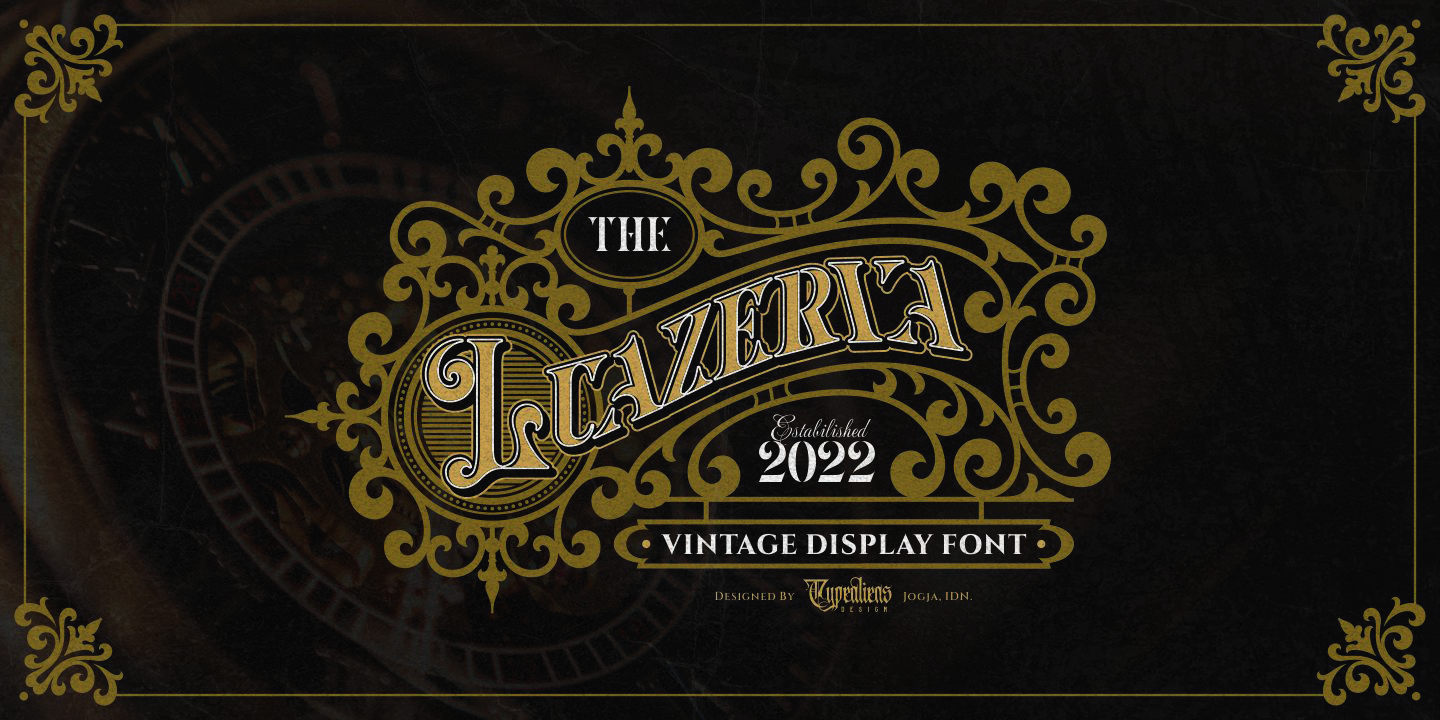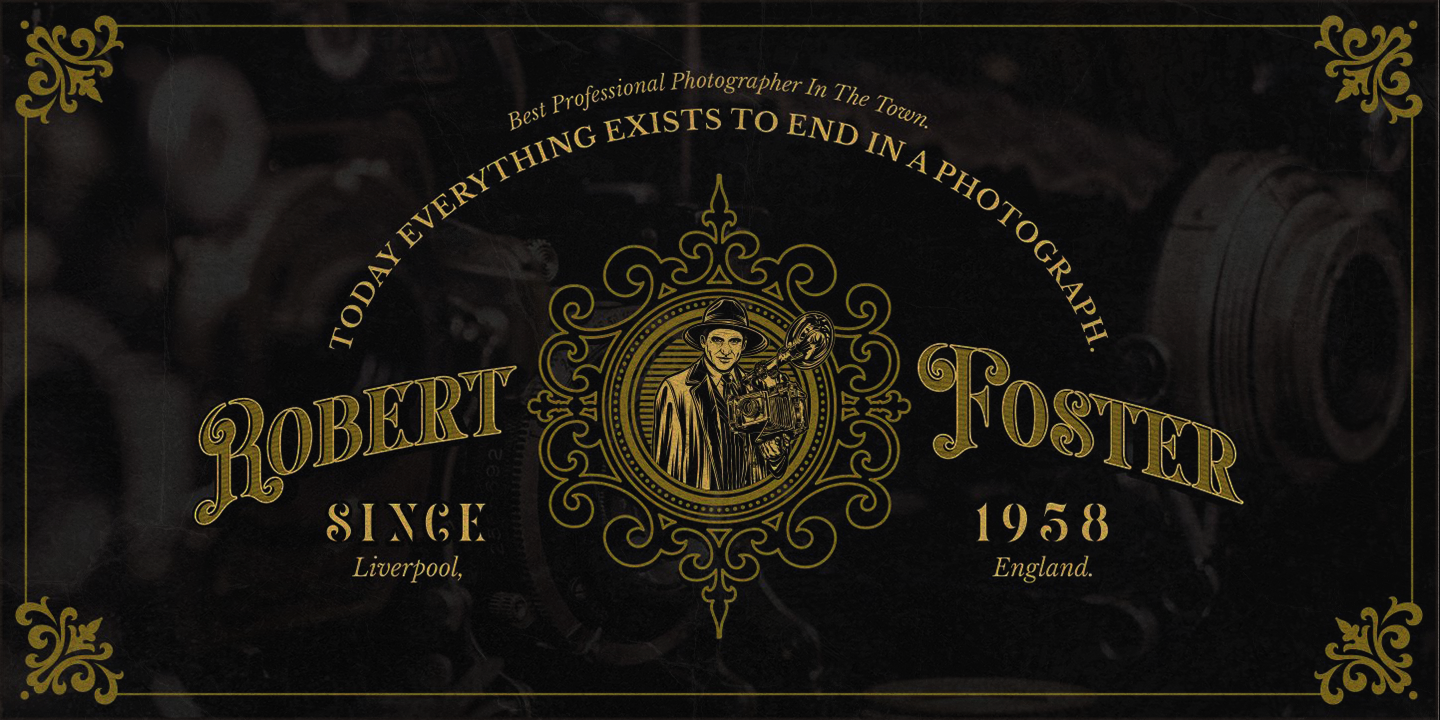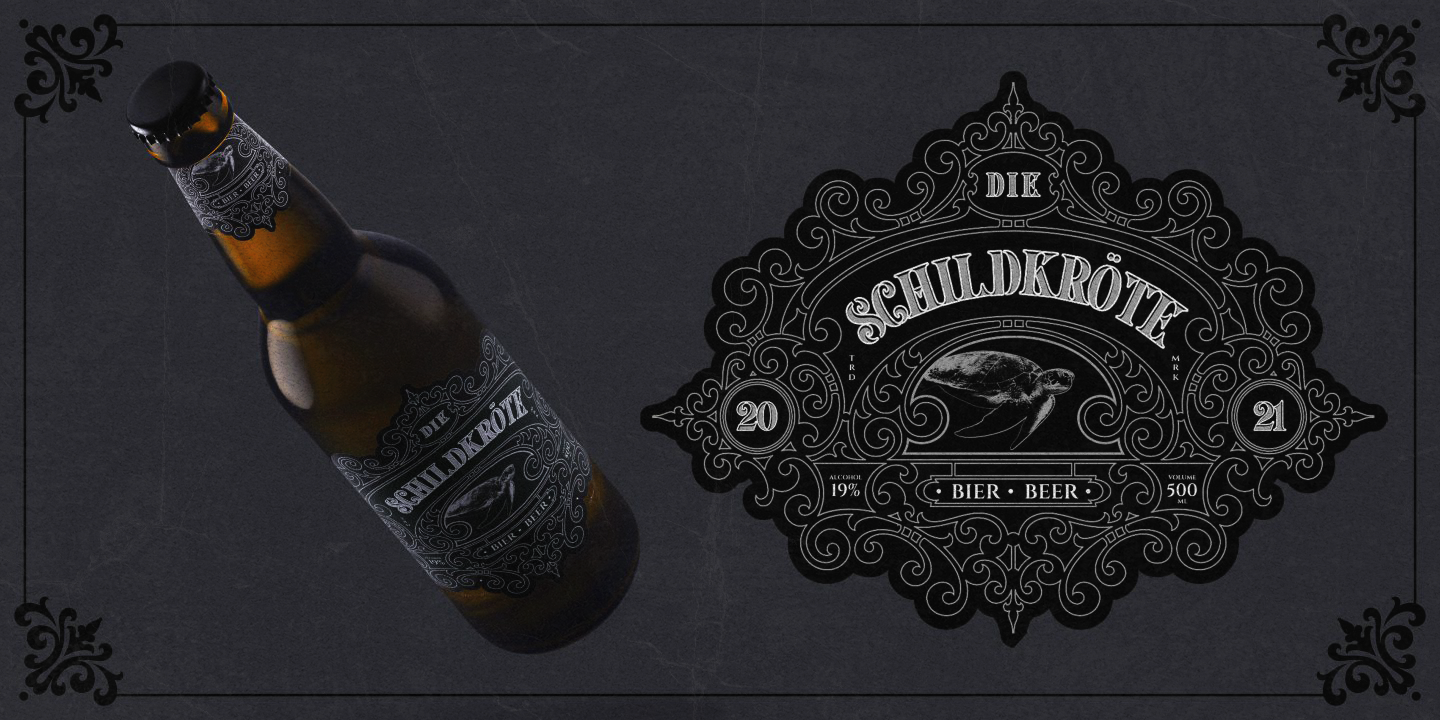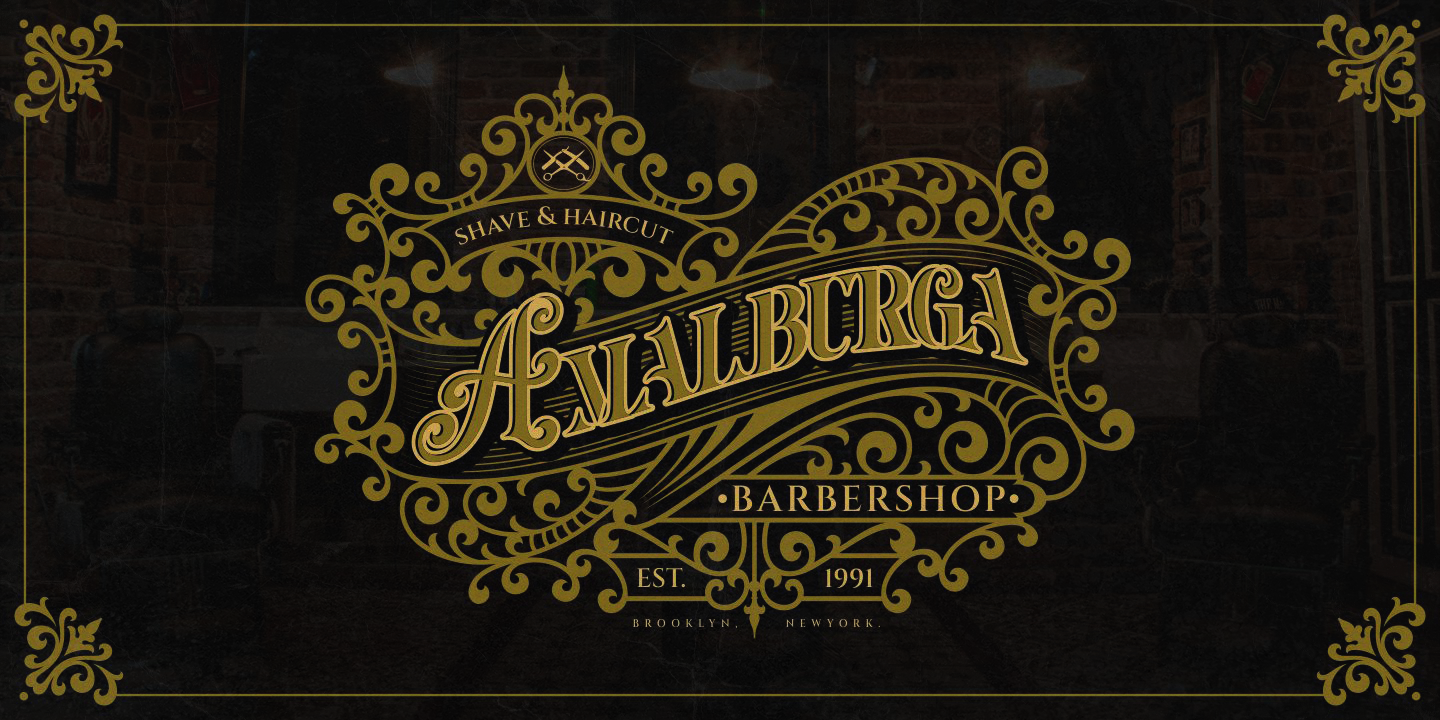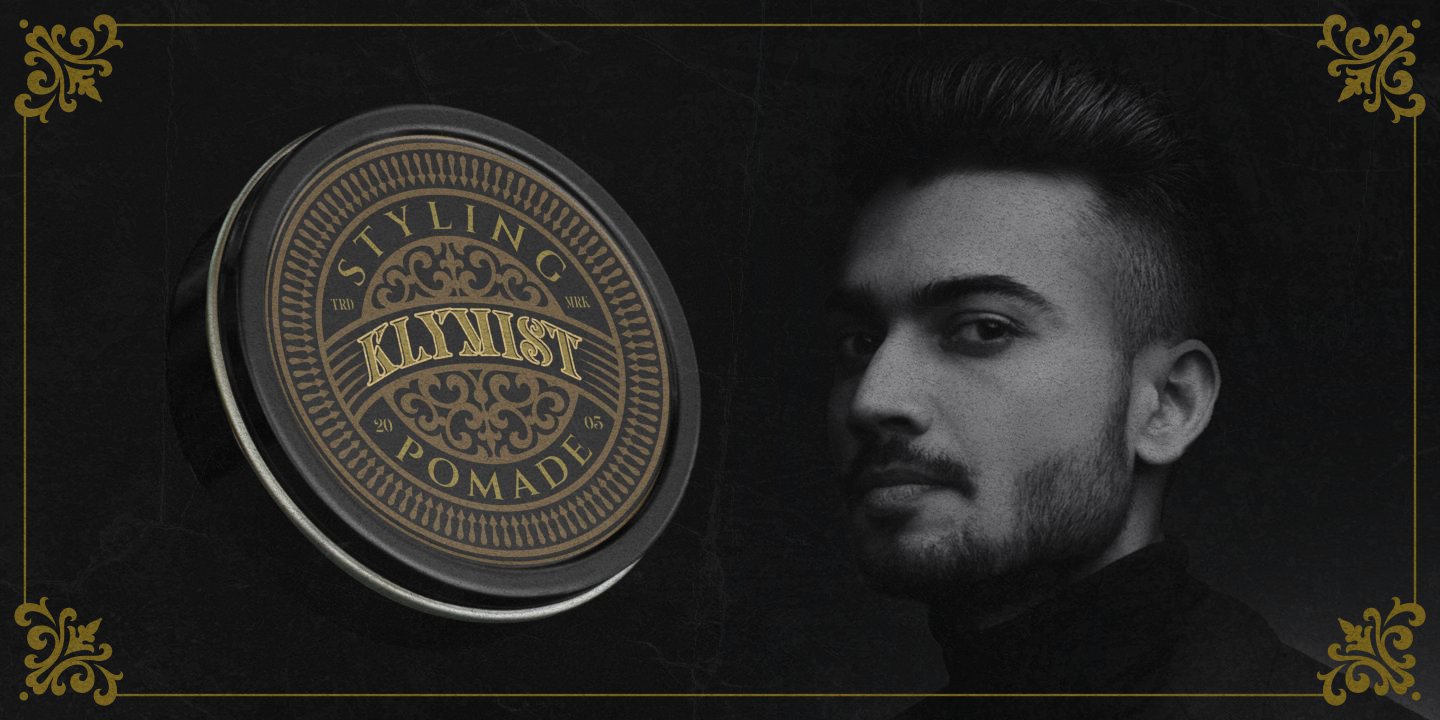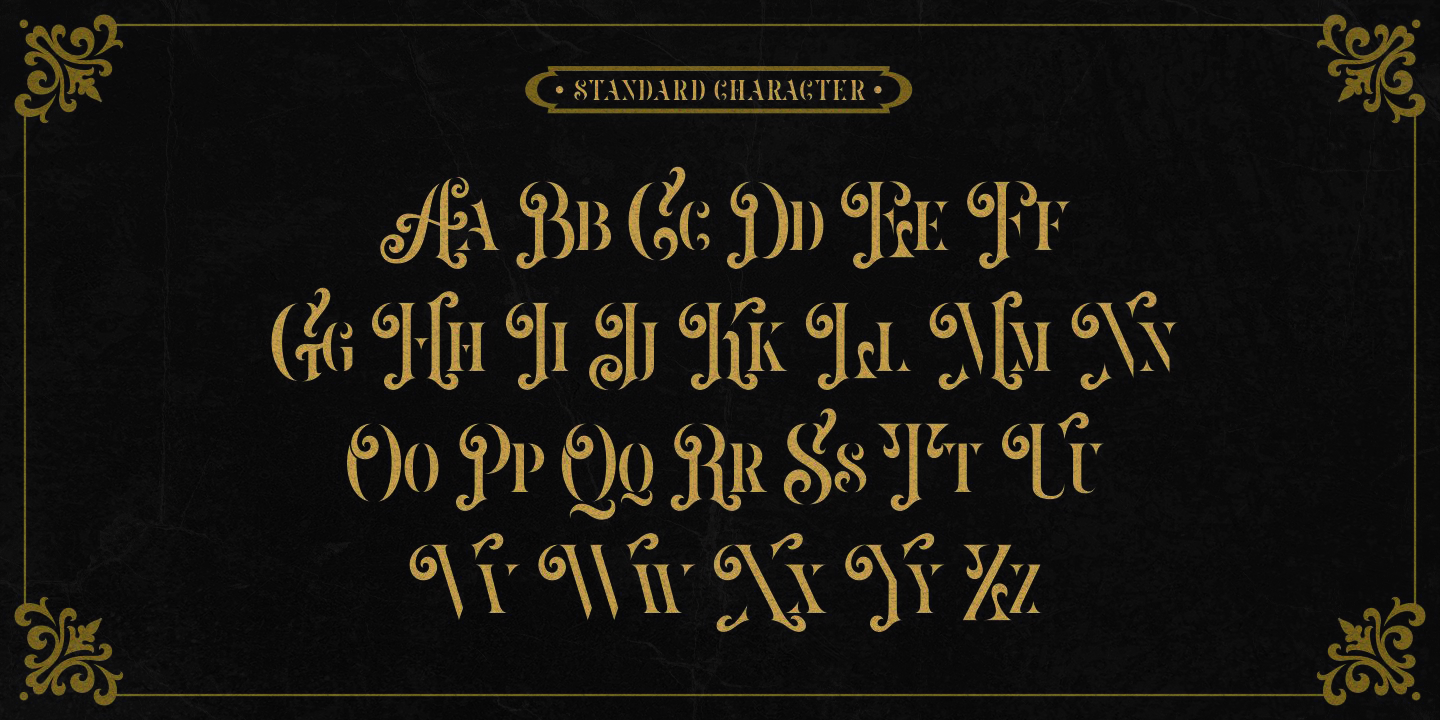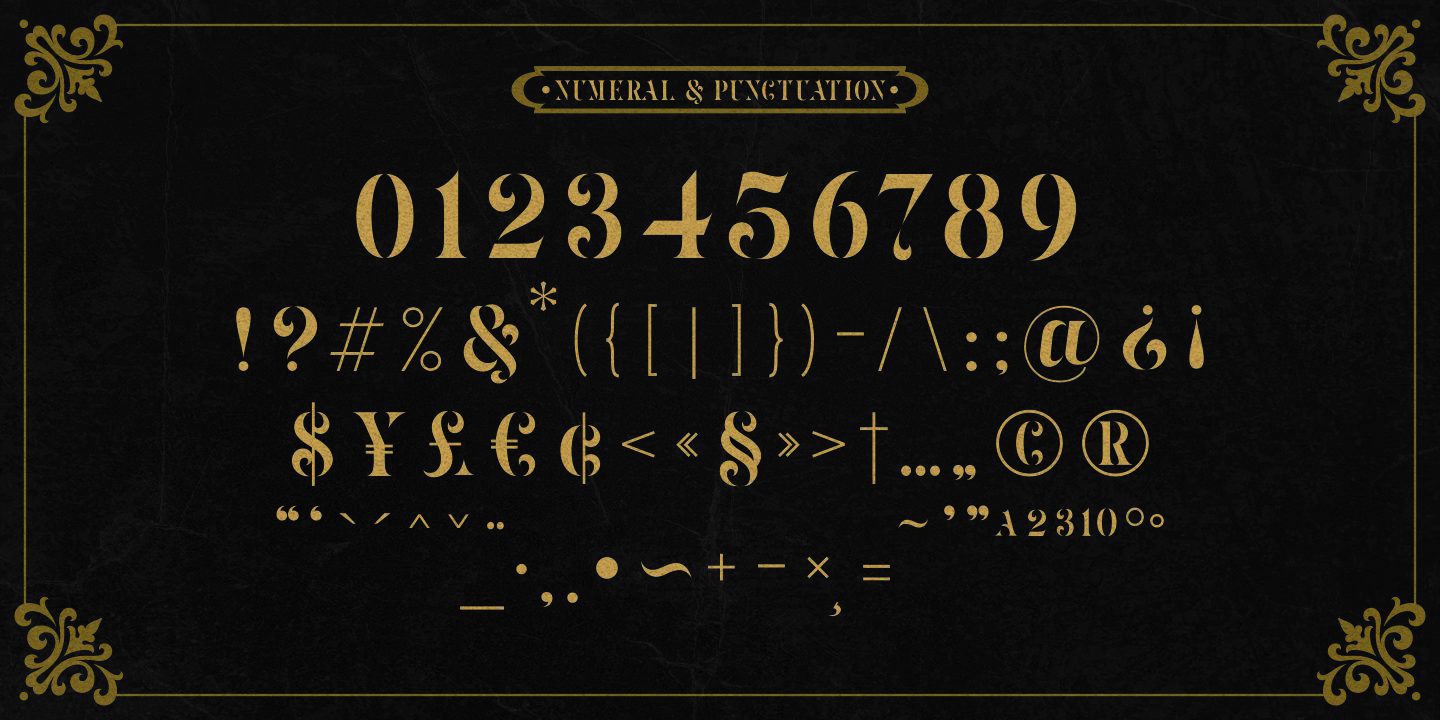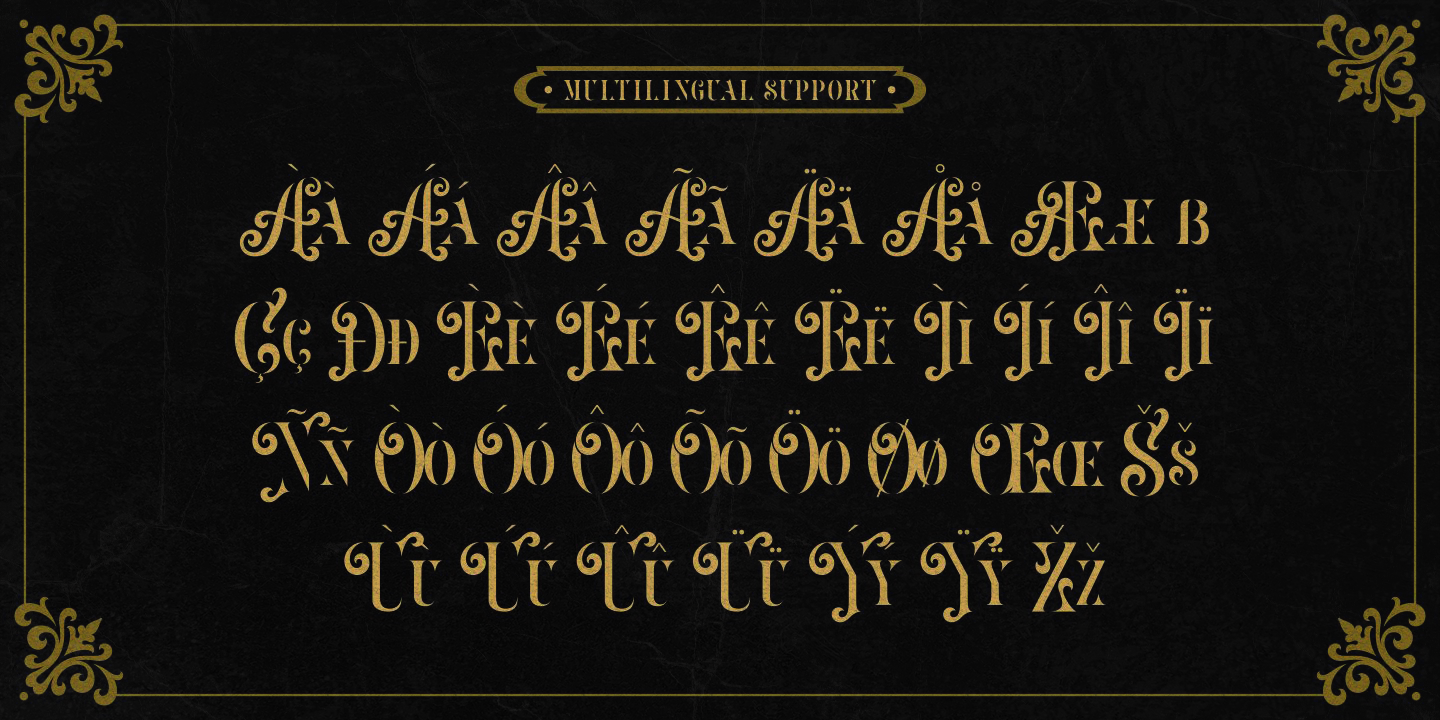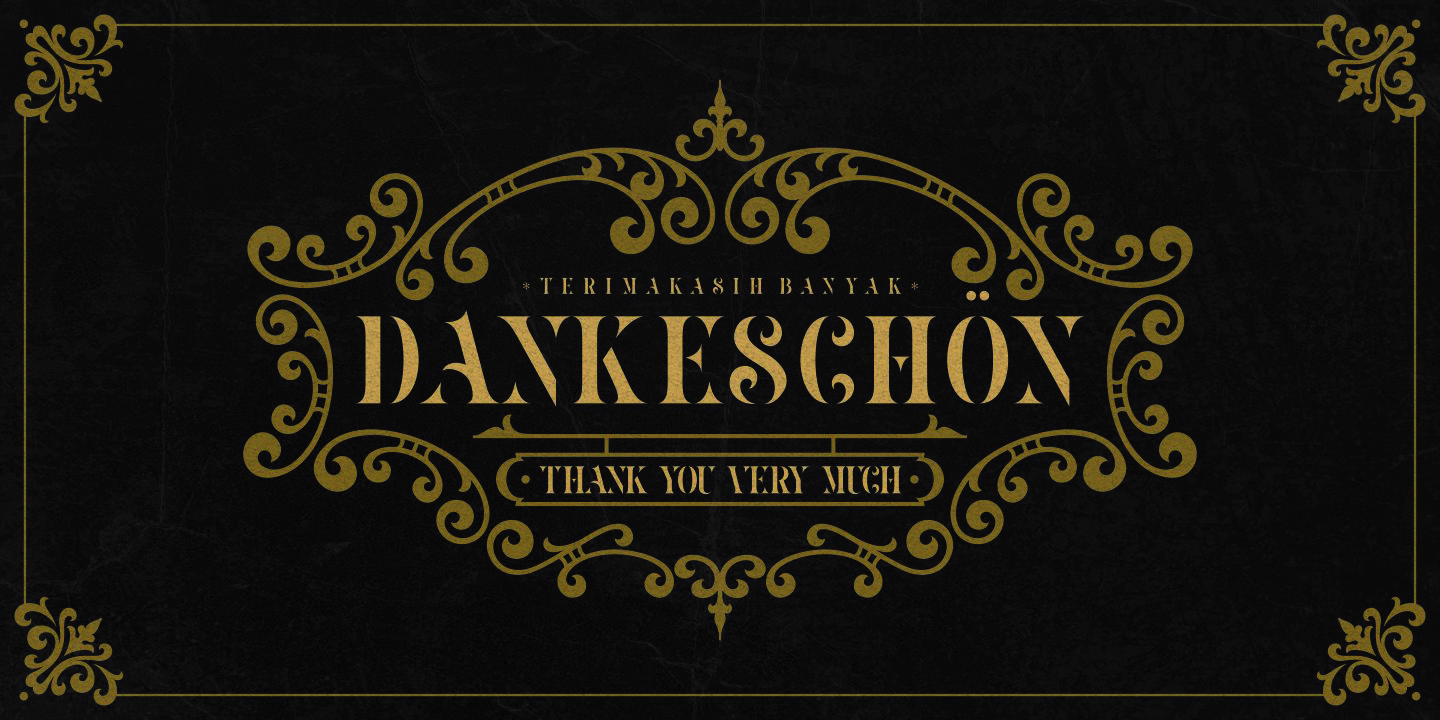
LUAZERVA is a font that is quite unique because the base is a classic serif font with the Victorian genre, why is it unique, because this font has a characteristic that is broken and loses the thin body of the letter itself, so besides being unique this font also has a rather difficult readability. So this font is really a display font that is not suitable for making long text.